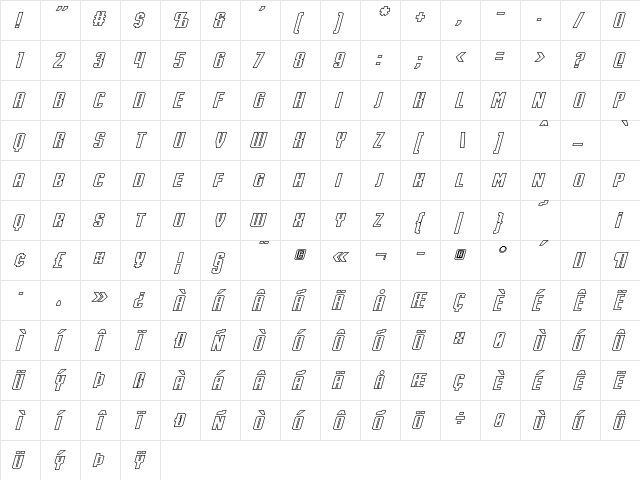
Stark Hollow Italic
| Foundry | Neale Davidson |
| Designer | Neale Davidson |
Design Context for Stark Hollow Typeface
Stark Hollow takes a measured approach to typography — its balanced proportions and neutral character make it a reliable workhorse for both digital and print work. The dynamic lean of this cut emphasises speed and emphasis in any layout.
Pro Tip: Use Stark Hollow for emphasis, pull quotes, and subheadings where its slanted energy can add rhythm to the layout.